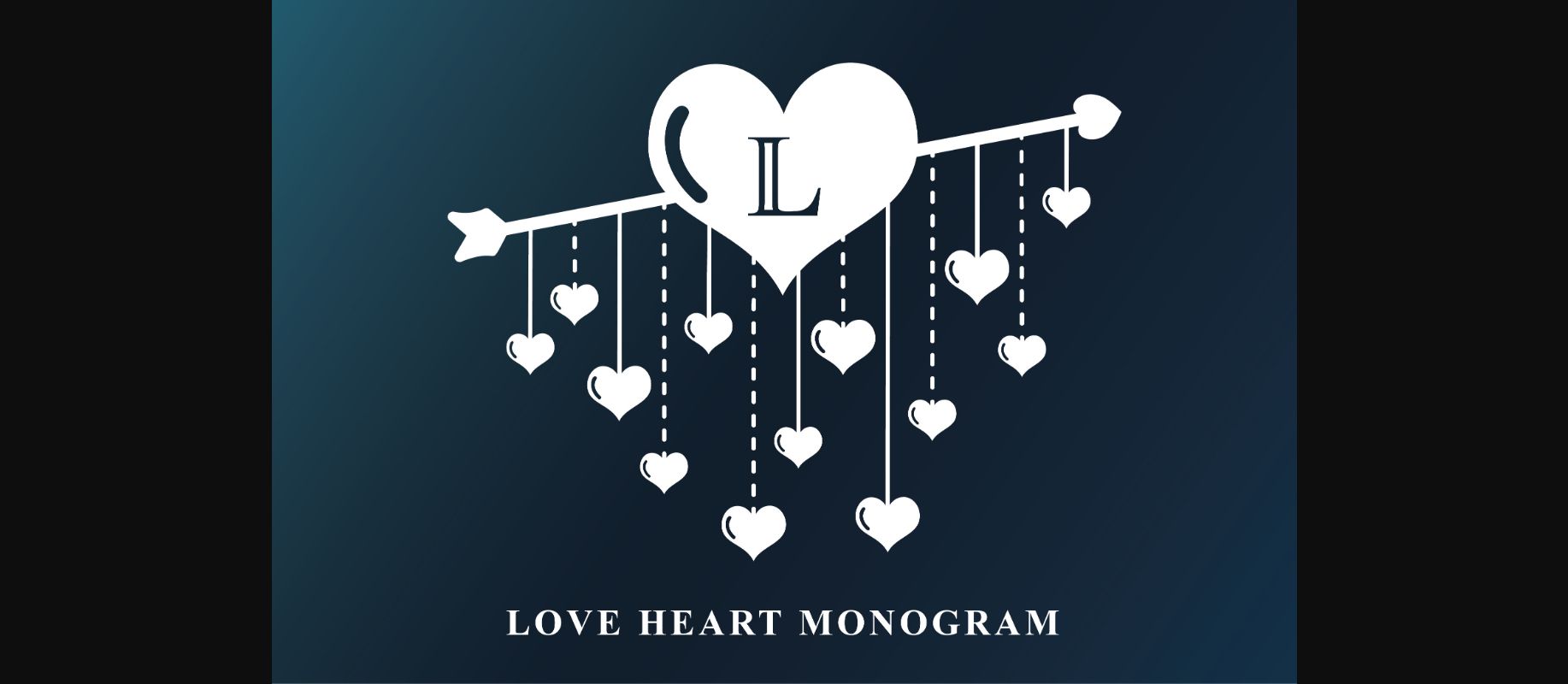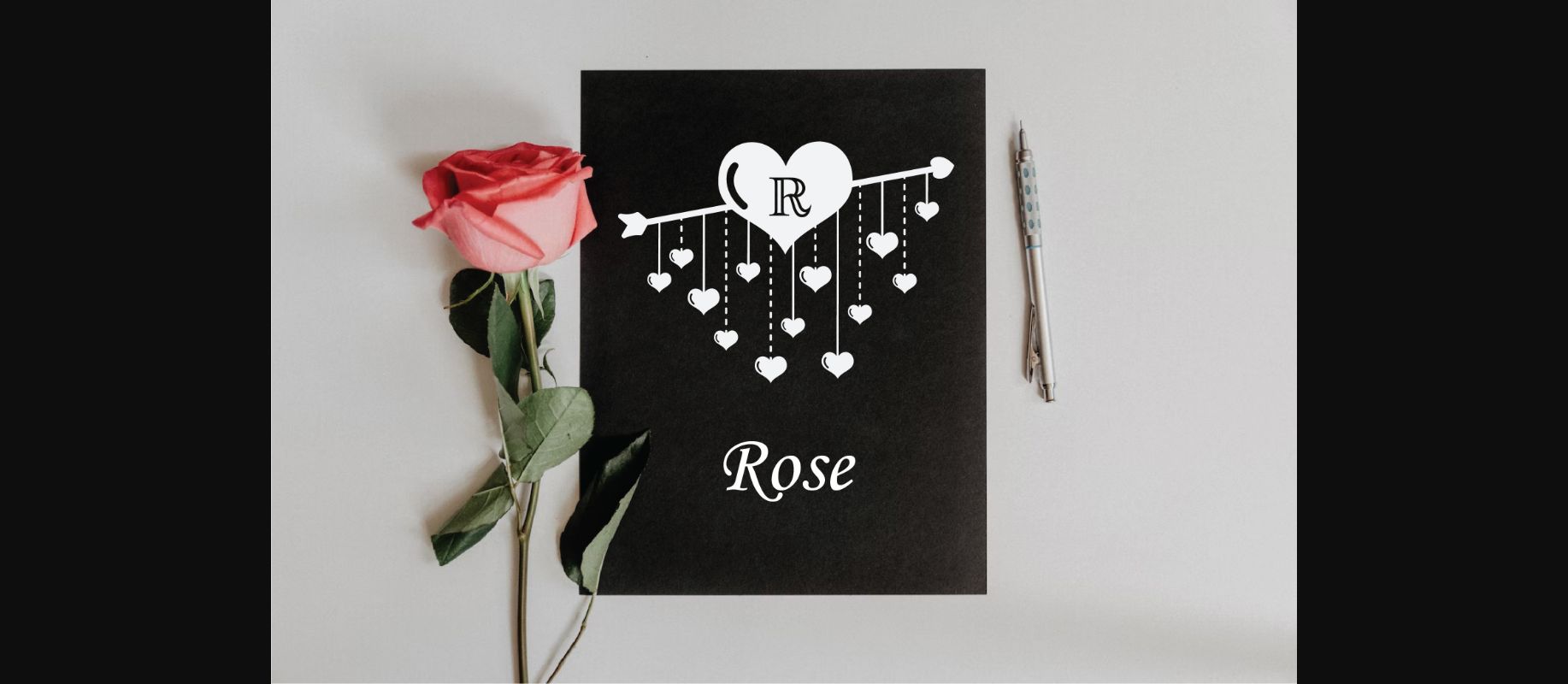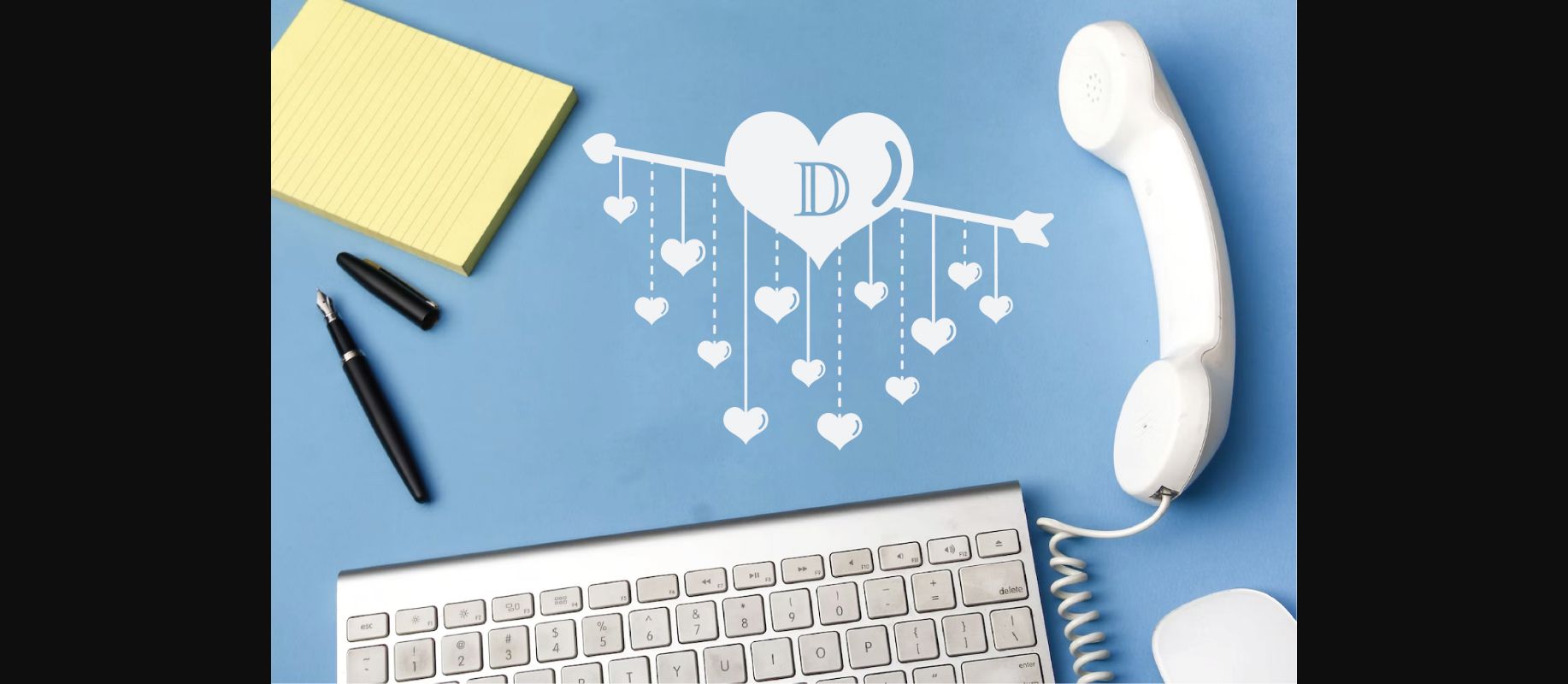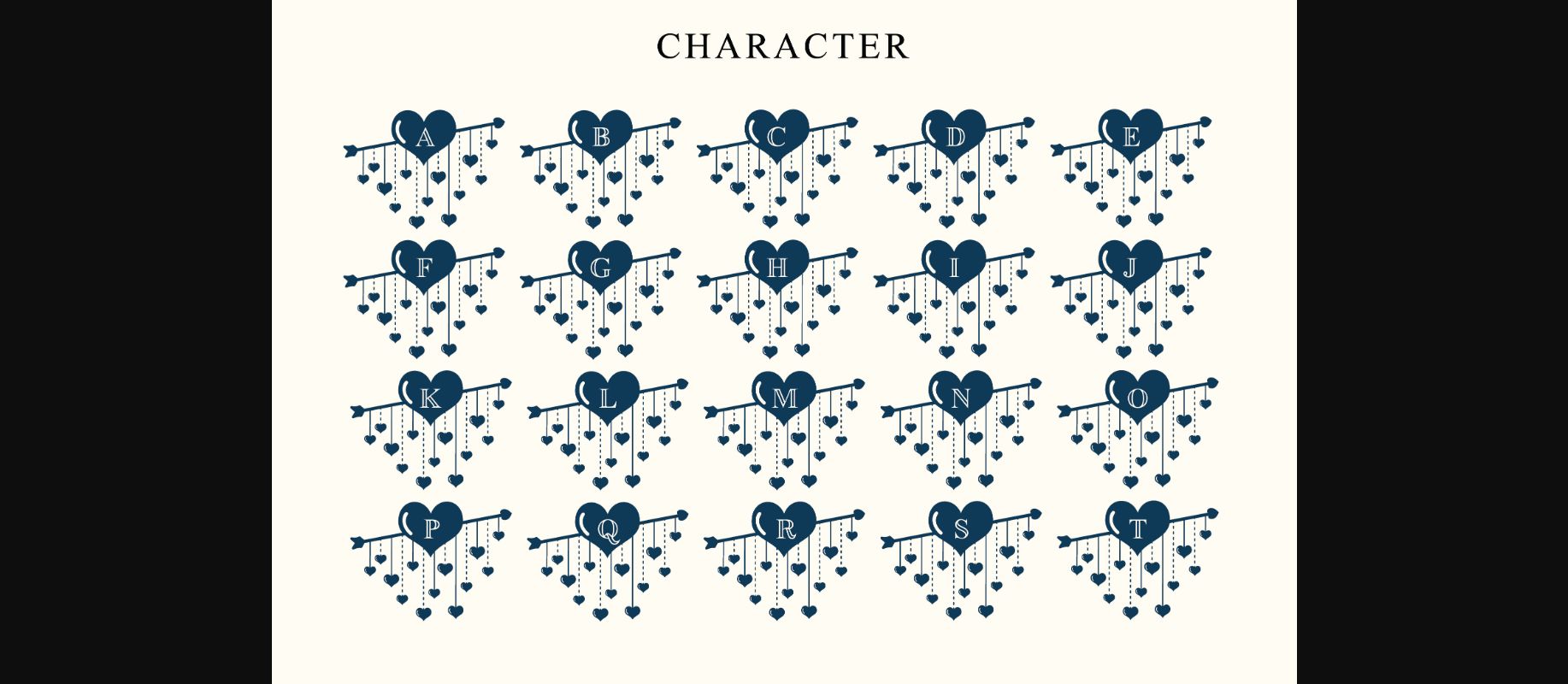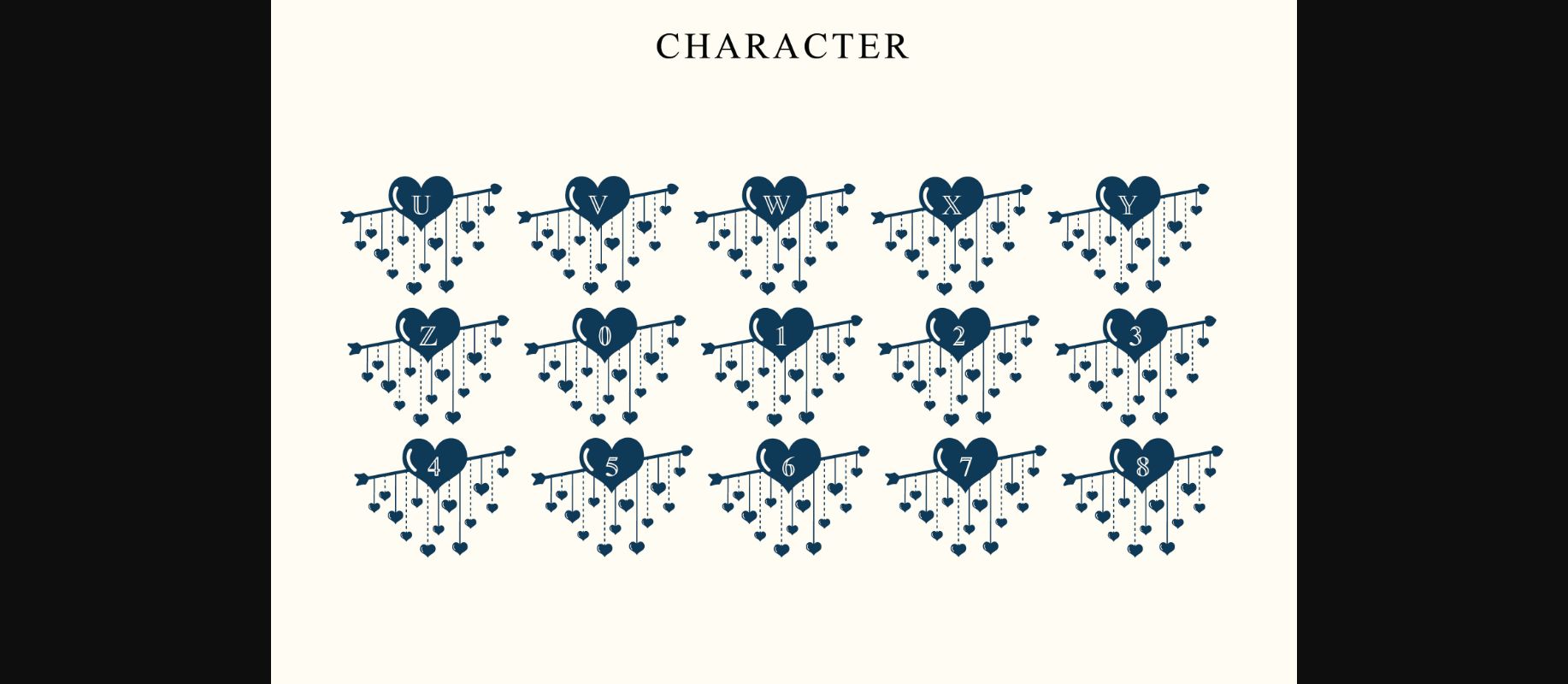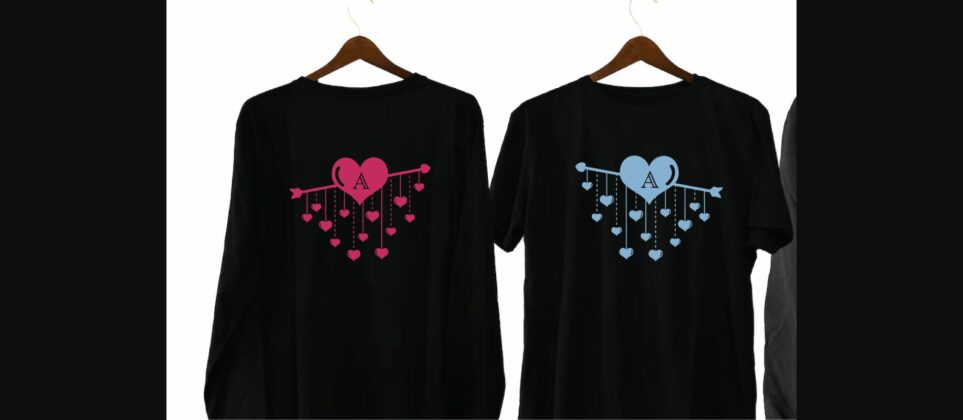
Love Heart Monogram Font
About Love Heart Monogram Font
Love Heart Monogram is a fresh and highly detailed decorative font. Add this beautiful-looking font to any of your favorite love letters, or design ideas, and you’ll be surprised at the results. This lovely monogram font is suitable for a wide range of applications.